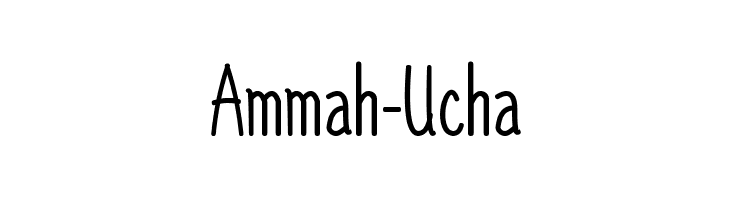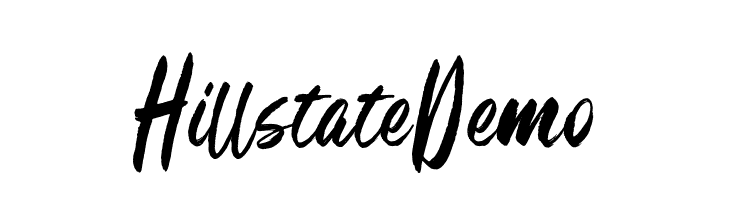
A bold, calligraphic font with high contrast and decorative elements.
A playful, informal handwritten font with rounded, consistent strokes.
A cursive script font with elegant, flowing strokes and decorative flourishes.
A playful, hand-drawn style font with elongated, smooth letterforms.
A bold, 3D geometric font with a retro, blocky style.
A decorative font with modern elements and unique diacritical marks.
A playful, hand-drawn font with rounded edges and consistent stroke width.
A playful, bold font with exaggerated serifs and a whimsical style.
A dynamic, cursive script font with flowing, artistic strokes.
A bold, blackletter-inspired font with sharp, angular lines and a gothic style.
设计师偏爱 Hertziano, Give Away, Kindness Abstract, LeaffusE Demo and Rental Regular,因为其造型干净、适用范围广—— 从品牌识别到落地页、海报都能胜任。